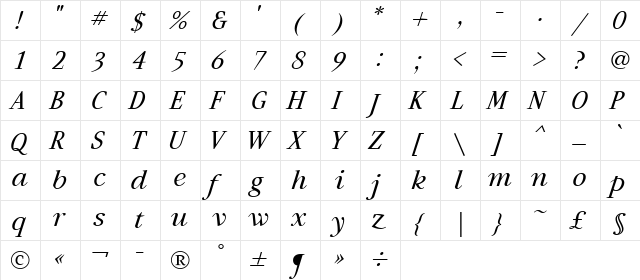
Artemius TT Regular Italic
Design Context for Artemius TT Typeface
Artemius TT is a composed and adaptable typeface that performs quietly and consistently across a wide range of design contexts. The dynamic lean of this cut emphasises speed and emphasis in any layout.
Pro Tip: Try Artemius TT for annotation and caption copy alongside an upright companion — the contrast in angle creates a dynamic but ordered typographic system.